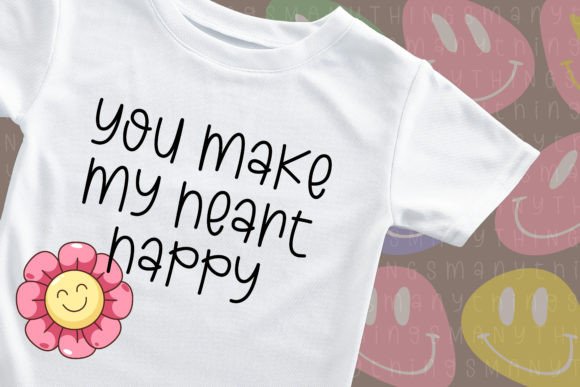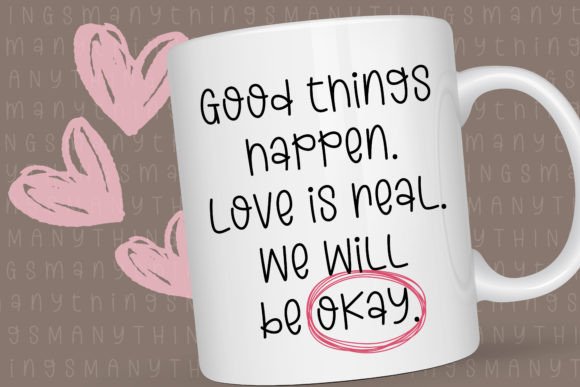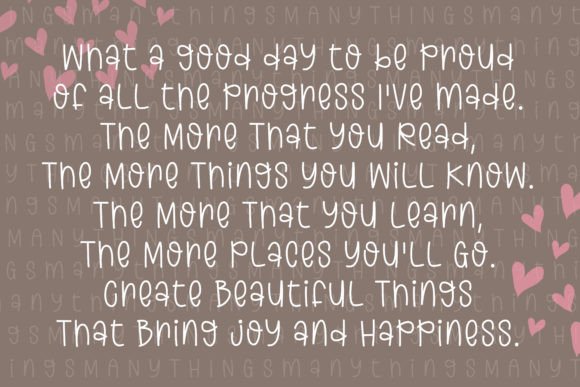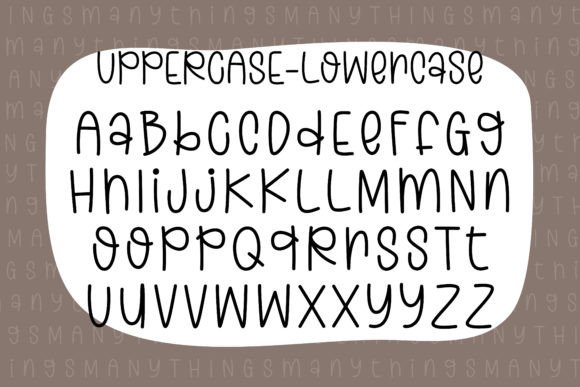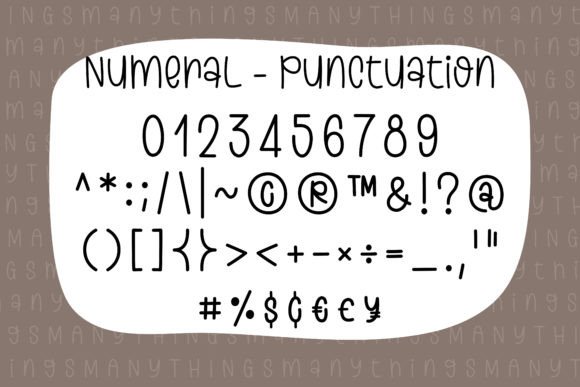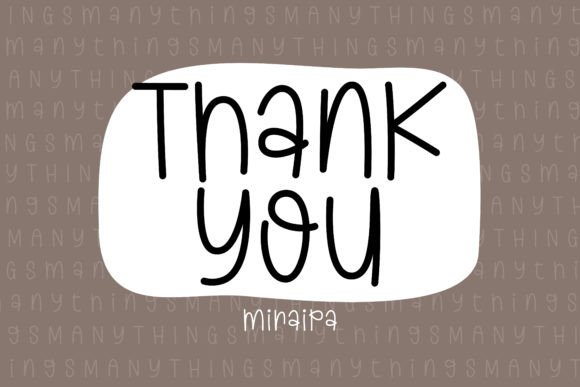
Introduction to Many Things Font
Have you ever been working on a creative project, pouring your heart and soul into every detail, only to feel like something’s missing? That’s when you need a font that speaks to the playful, whimsical side of your design. Enter Many Things Font, a charming sans serif font that’s sure to bring a smile to your face and a touch of magic to your projects.
Key Features of Many Things Font
- High-quality design resource featuring a unique and creative style, perfect for various projects.
- Translucent background design, ideal for use on transparent backgrounds or layered designs.
- Includes a wide range of glyphs and characters, making it suitable for use in various creative projects, such as logos, typography, and graphics.
- Supports various languages, making it a versatile design resource for global projects and collaborations.
Honest Review: Many Things Font
I recently stumbled upon the Many Things Font and I must say, I’m quite impressed. This free download has been a game-changer for my design projects. The high-quality design is perfect for adding a touch of personality to my creative endeavors.
- Clear and readable typography: The Many Things Font is well-designed and easy on the eyes, making it perfect for body text.
- Unique aesthetic: The font’s quirky style adds a touch of whimsy to any design project.
- Limited font weights: The Many Things Font only comes in a few weights, which may limit its versatility.
The Many Things Font is ideal for creating invitations, social media graphics, and promotional materials. Its high-quality design makes it suitable for various creative projects, from logos to brochures. Use it to add a touch of sophistication and elegance to your designs.